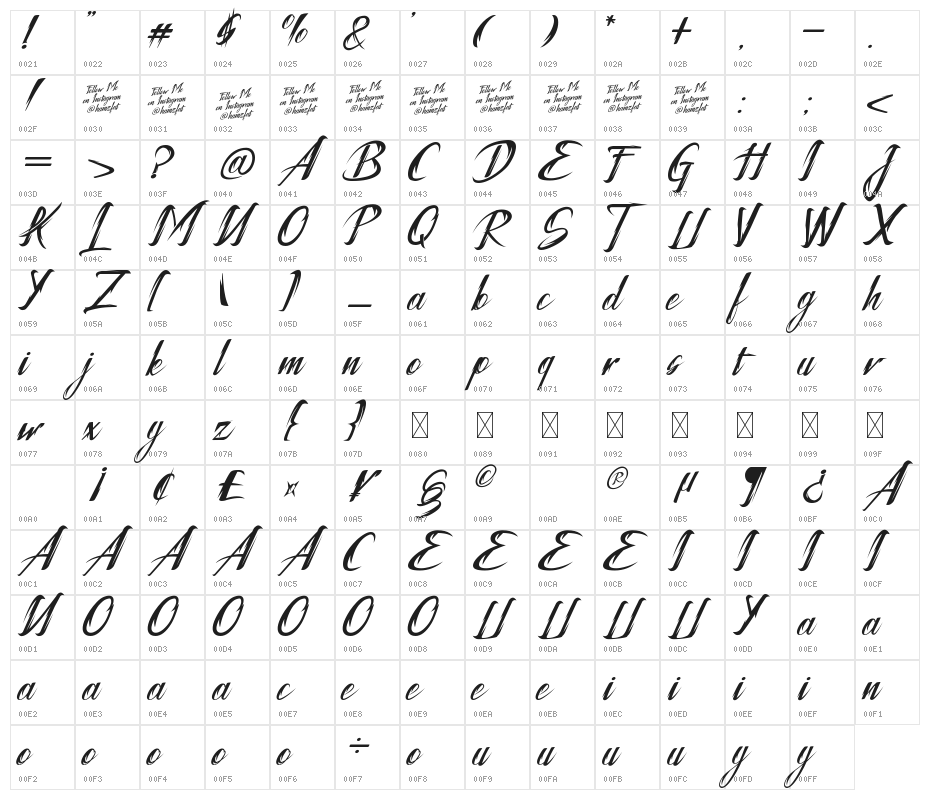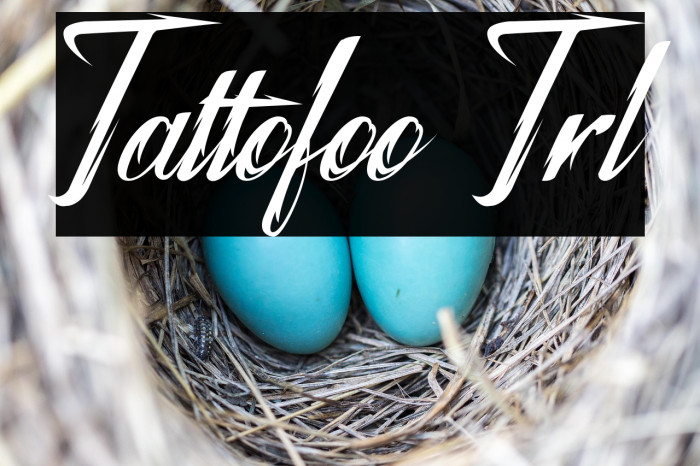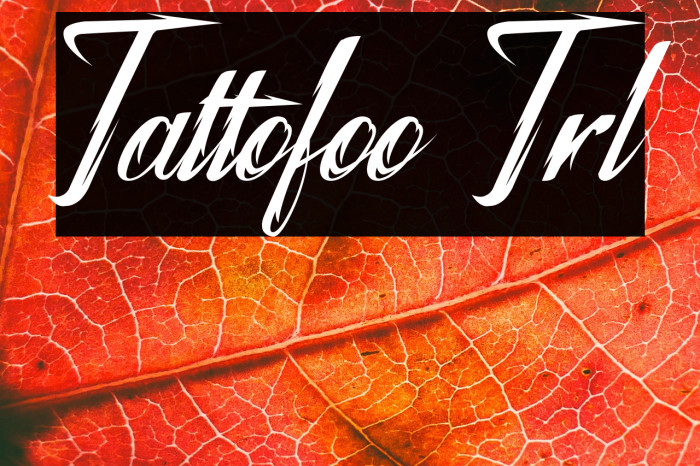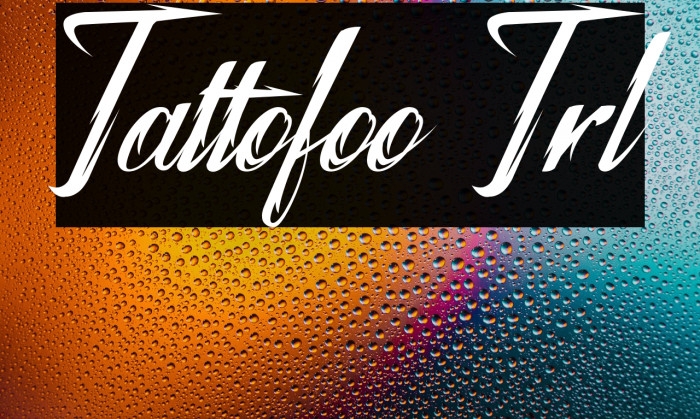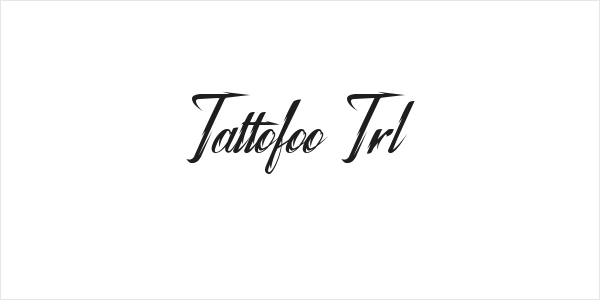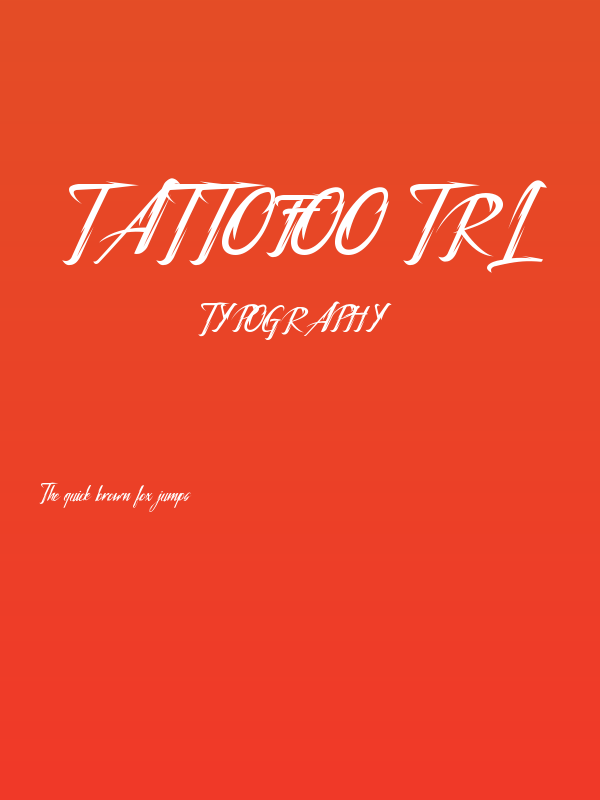
Tattofoo Trl Font
Tattofoo Trl Description
This font features a dynamic and flowing script style, characterized by its elegant and sweeping curves. The letters are interconnected, creating a sense of fluidity and movement. The strokes are bold and expressive, with varying thickness that adds a dramatic flair. This font exudes a sense of sophistication and artistry, making it ideal for creative and decorative applications. The uppercase letters are particularly striking, with their elongated forms and intricate details. The lowercase letters maintain a consistent style, complementing the uppercase with their graceful loops and swashes. The special characters are equally ornate, adding to the font's overall decorative appeal.
| Proposed Projects | Ideal for tattoo designs, artistic logos, invitations, and decorative headlines. |